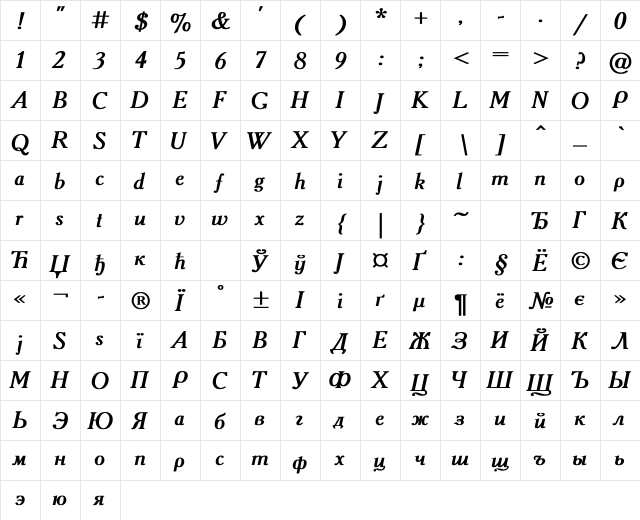
Academy Bold Italic
Design Context for Academy Typeface
Academy offers clean, dependable letterforms without strong stylistic allegiance, making it a practical choice for designers who need flexibility. The dynamic lean of this cut emphasises speed and emphasis in any layout. Its bold stroke weight gives it real presence on the page.
Pro Tip: Try Academy for annotation and caption copy alongside an upright companion — the contrast in angle creates a dynamic but ordered typographic system.